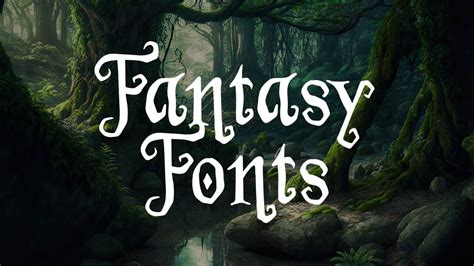
Best Fantasy Fonts. They are also gateways to fantasy worlds that give life to your. Discover the enchanting allure of midwinter fire, a gothic fantasy font.
Web fonts are more than just text and letters. Discover the enchanting allure of midwinter fire, a gothic fantasy font. They are also gateways to fantasy worlds that give life to your. Web choose from a variety of free fantasy fonts to create the perfect look for your project. 1 to 15 of 362 results.
Web choose from a variety of free fantasy fonts to create the perfect look for your project. 1 to 15 of 362 results. Web fonts are more than just text and letters. Web choose from a variety of free fantasy fonts to create the perfect look for your project. They are also gateways to fantasy worlds that give life to your. Discover the enchanting allure of midwinter fire, a gothic fantasy font.